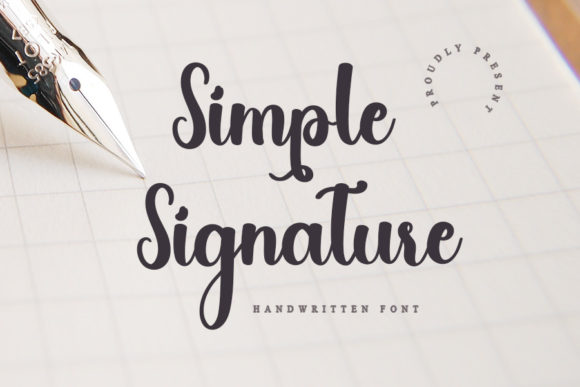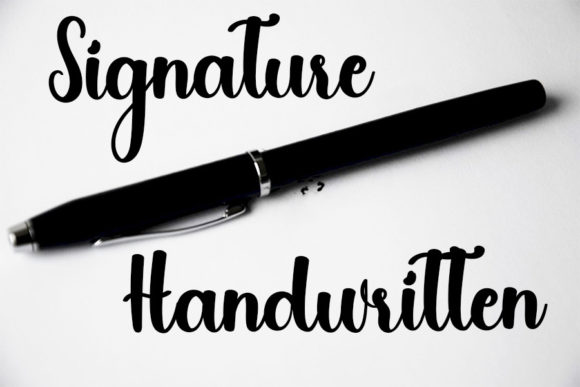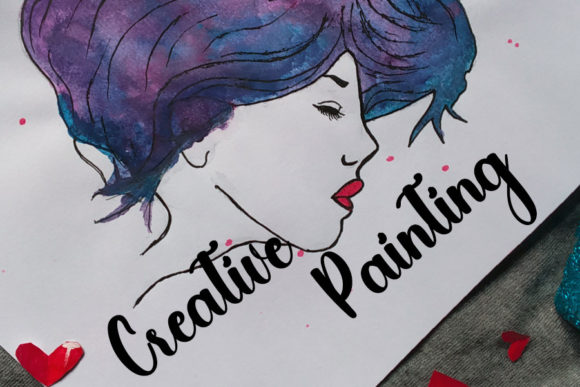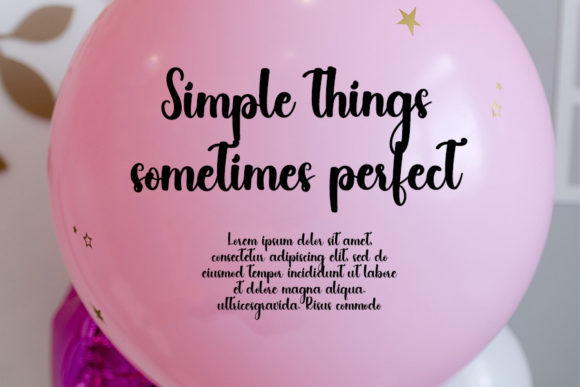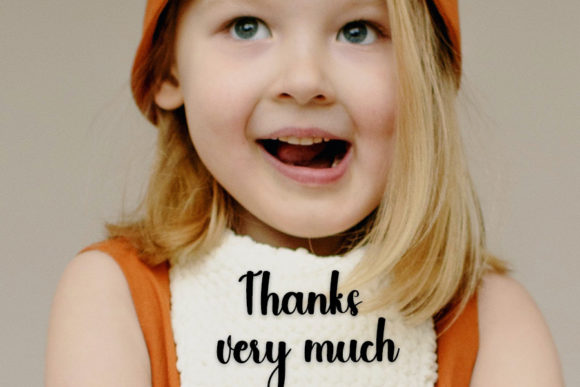
Simple Signature Font
Simple Signature is a friendly handwritten font, thoughtfully designed to become a true favorite. It successfully retains its classy calligraphic influences while embracing a contemporary and fresh feel.
The friendly demeanor of Simple Signature makes it a versatile choice for various design applications. Whether utilized in branding, product packaging, invitations, or any project that requires a touch of personal and approachable style, this font brings forth a warm and inviting aesthetic.
Carefully designed, Simple Signature seamlessly balances classic calligraphic elements with a modern and fresh look. Each character is crafted with precision to embody both sophistication and a sense of current design trends.
For branding projects, Simple Signature proves to be a valuable asset, offering a signature-style logo that exudes authenticity and uniqueness. Its friendly yet classy appearance enhances the overall identity of a brand, making it memorable to the audience.
In product packaging, Simple Signature adds a touch of charm and warmth, making your products stand out on the shelves. The handwritten style imparts a personal touch, creating a connection with consumers.
Invitations and stationery benefit from the versatile appeal of Simple Signature, creating a sense of elegance and approachability. Its adaptability to various design contexts makes it suitable for a wide range of creative projects.
Choose Simple Signature when you desire a font that not only retains its classy calligraphic roots but also feels contemporary and fresh. Let this font be the friendly and inviting element that elevates your designs, making them truly memorable and cherished.